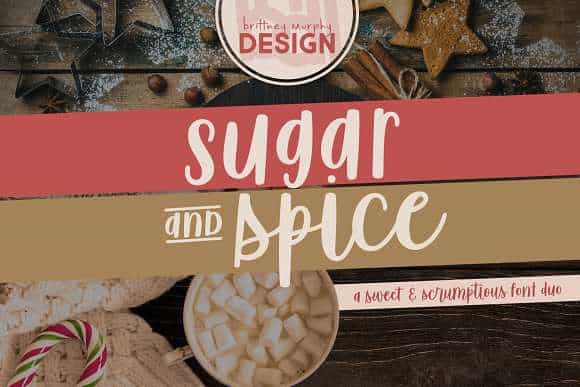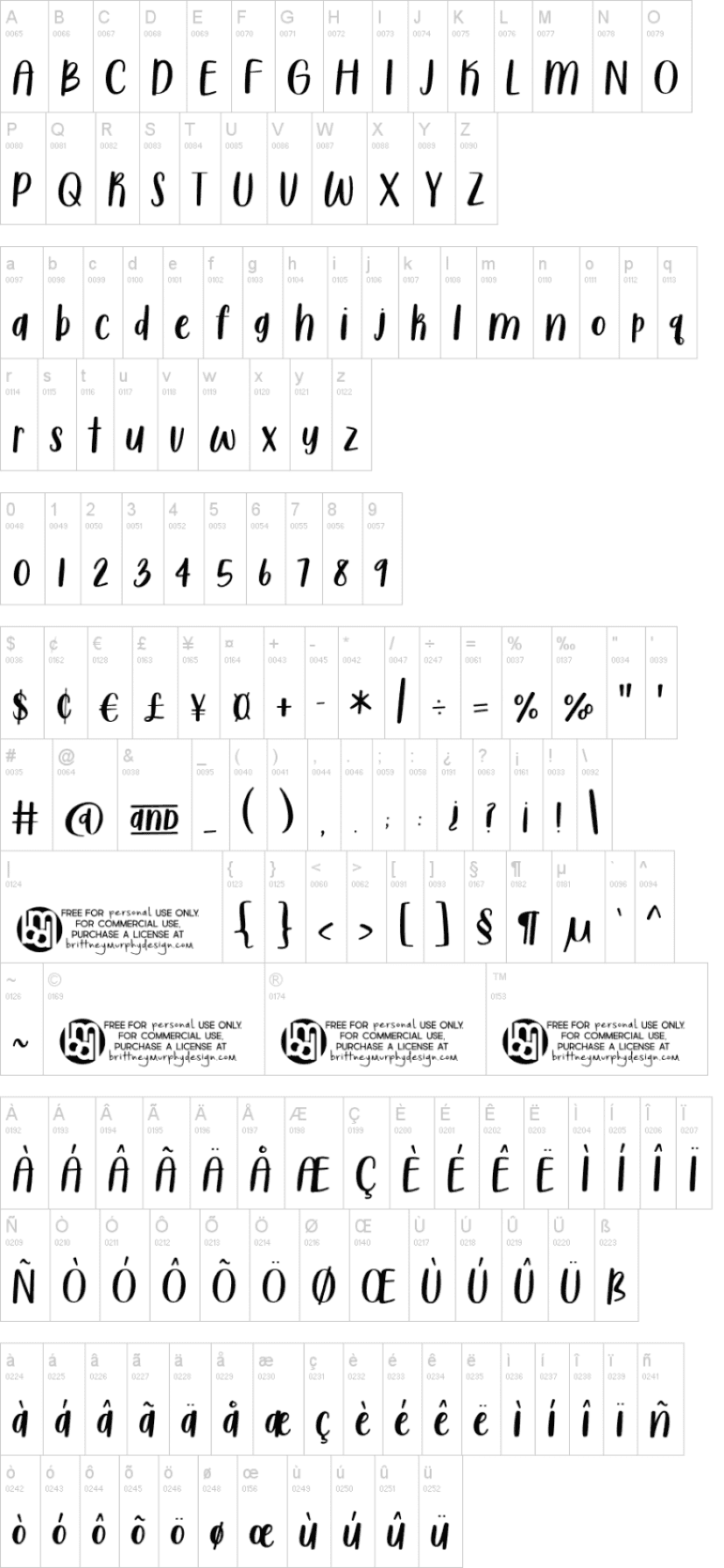
Sugar & Spice HandSans is a cheerful and unpretentious sans serif in the handwriting style. Contains lowercase letters with contextual alternates, and small capitals, so that you can switch between the styles as you wish.